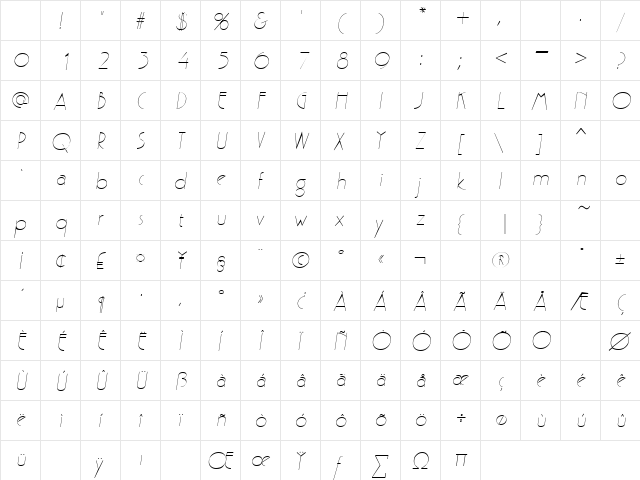
Parisian SF is a composed and adaptable typeface that performs quietly and consistently across a wide range of design contexts. The slanted form adds forward momentum and visual energy.
Pro Tip: Use Parisian SF for emphasis, pull quotes, and subheadings where its slanted energy can add rhythm to the layout.